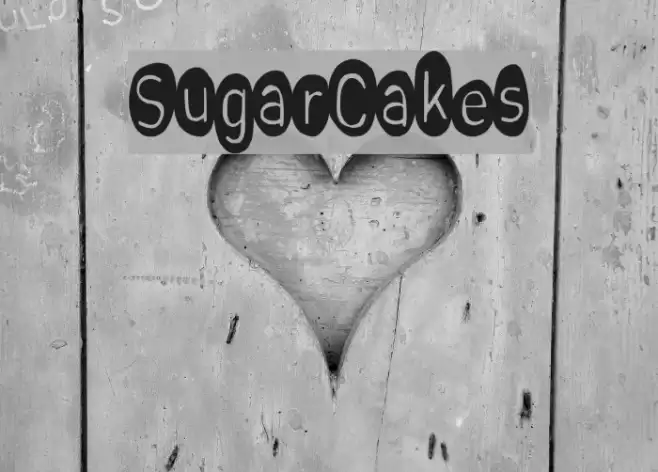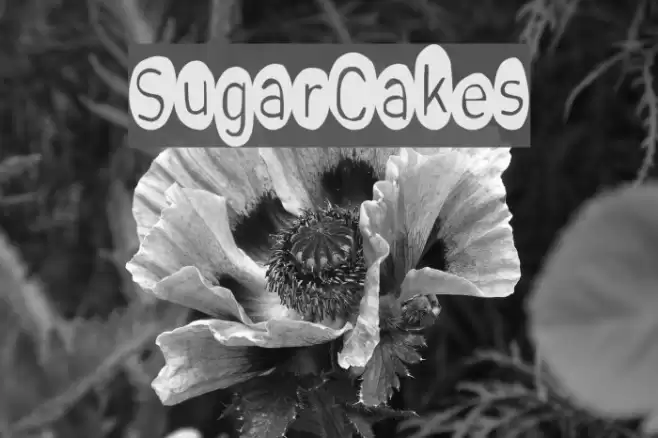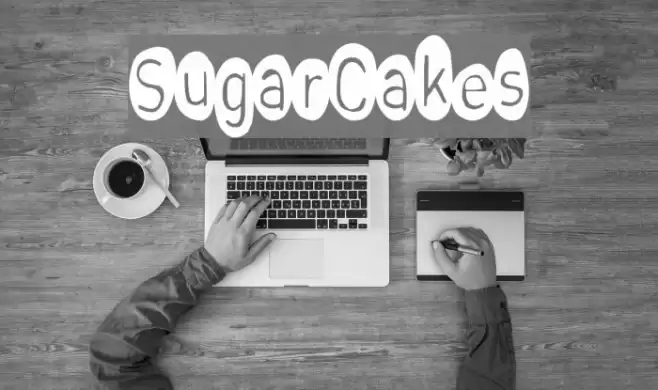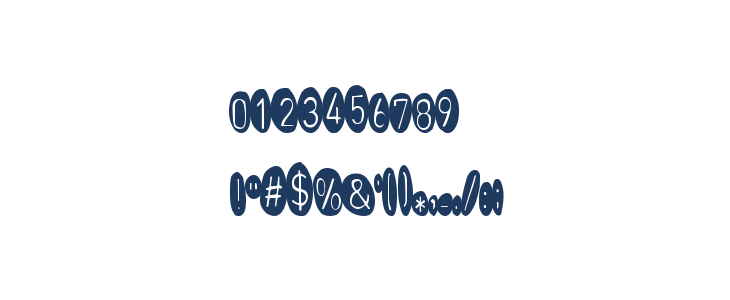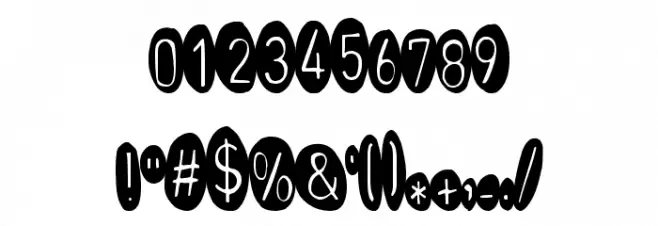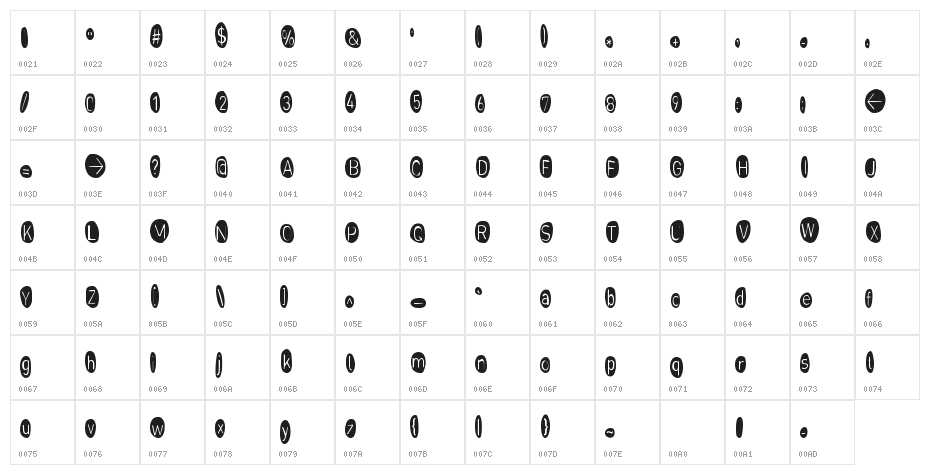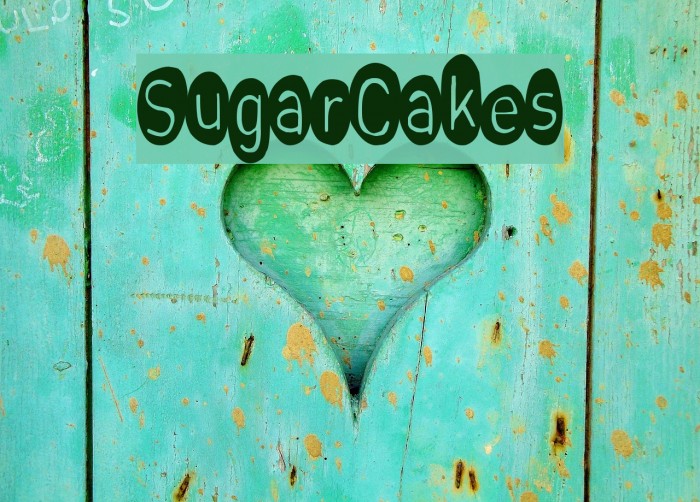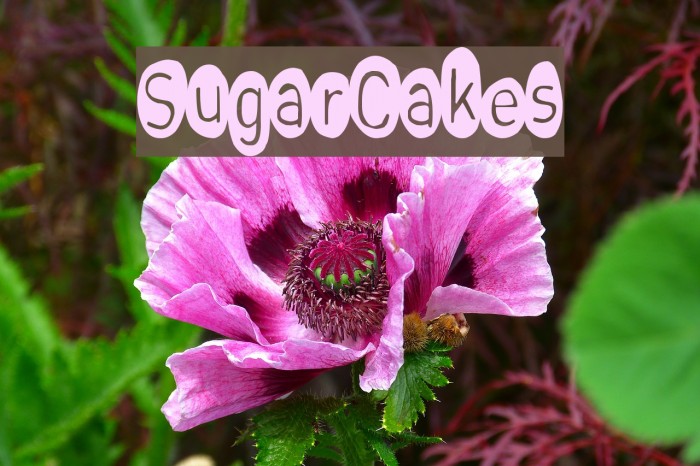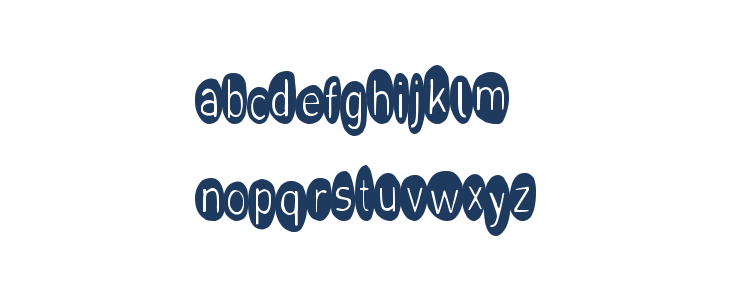
SugarCakes Font
SugarCakes Description
This playful and bold font features rounded, bubble-like characters that exude a sense of fun and whimsy. The letters are enclosed in thick, black outlines, giving them a distinct and eye-catching appearance. The uppercase and lowercase letters maintain a consistent style, with a uniform height that enhances readability. The numbers and special characters follow the same design principles, ensuring a cohesive look across all elements. This font's unique style makes it ideal for projects that require a touch of creativity and playfulness.
A playful, bubble-like font with bold outlines and a whimsical style from Uncategorized fonts.
- Proposed Projects: Ideal for children's books, playful branding, party invitations, and creative posters.
- Overall Style: Playful, Whimsical